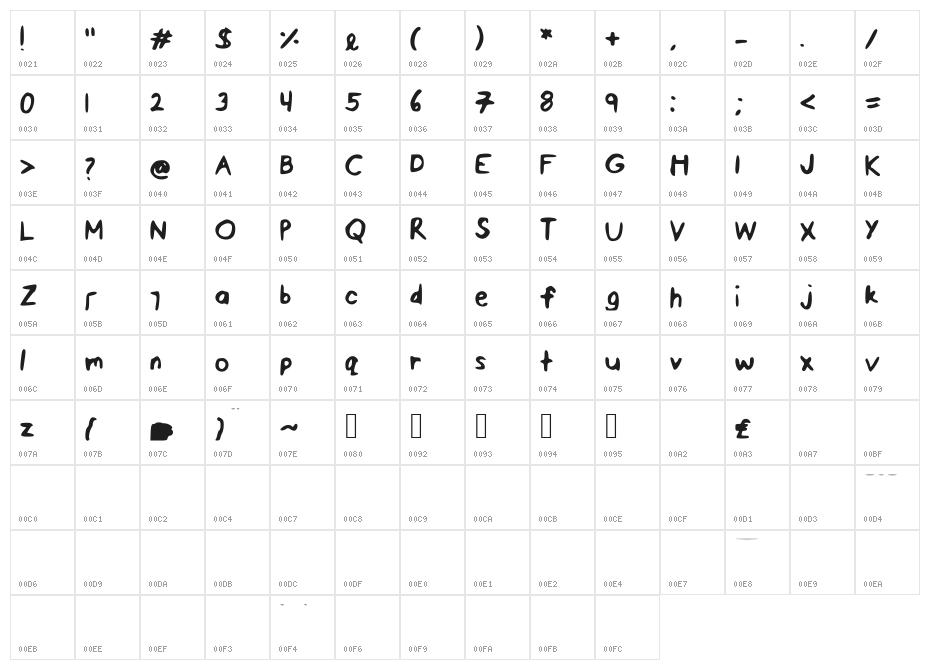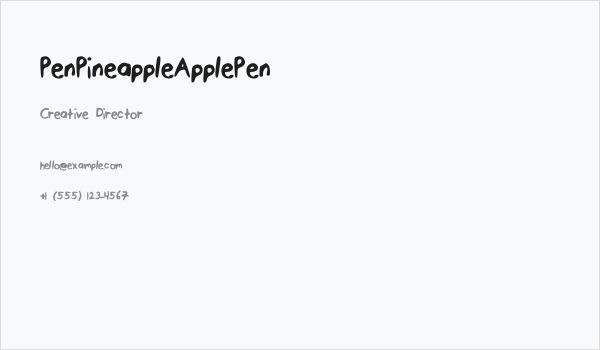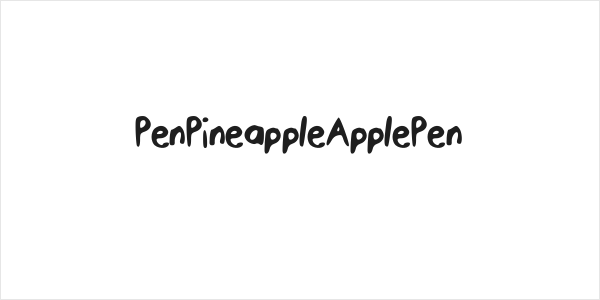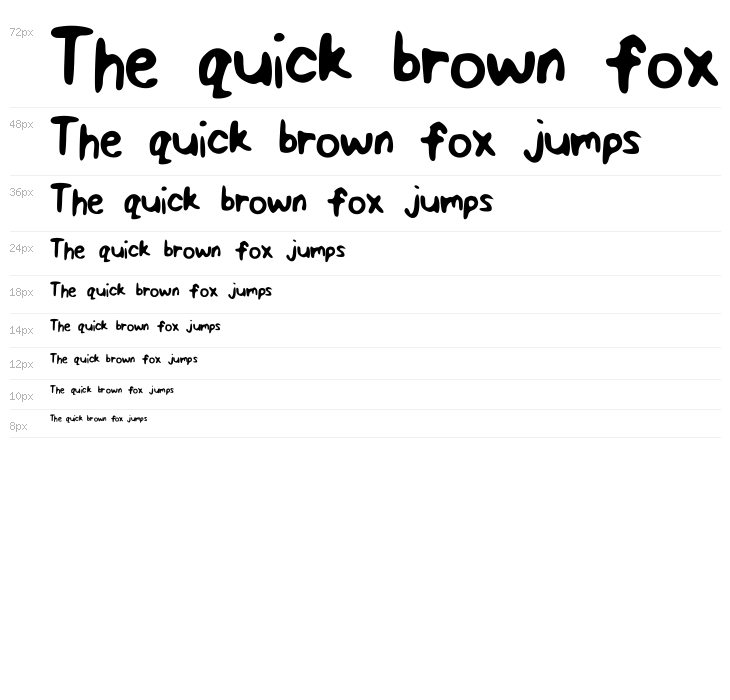
PenPineappleApplePen Font
PenPineappleApplePen Description
This playful and bold font features a handwritten style with a casual, informal appearance. The letters are rounded and slightly irregular, giving them a friendly and approachable feel. The strokes are thick and consistent, creating a strong visual impact. The font includes both uppercase and lowercase letters, numbers, and a variety of special characters. Its unique style makes it suitable for creative projects that require a personal touch.
| Use Case | Headlines, Logos, Informal text |
| Proposed Projects | Ideal for children's books, playful branding, greeting cards, and informal invitations. |